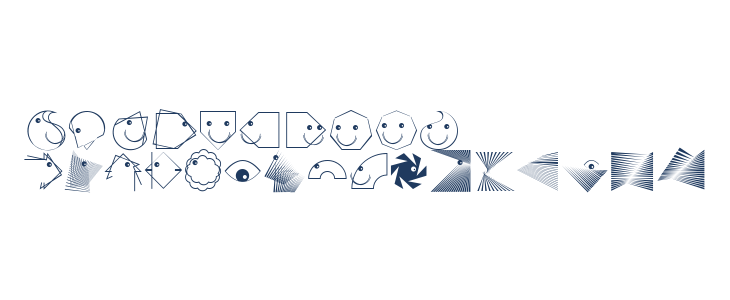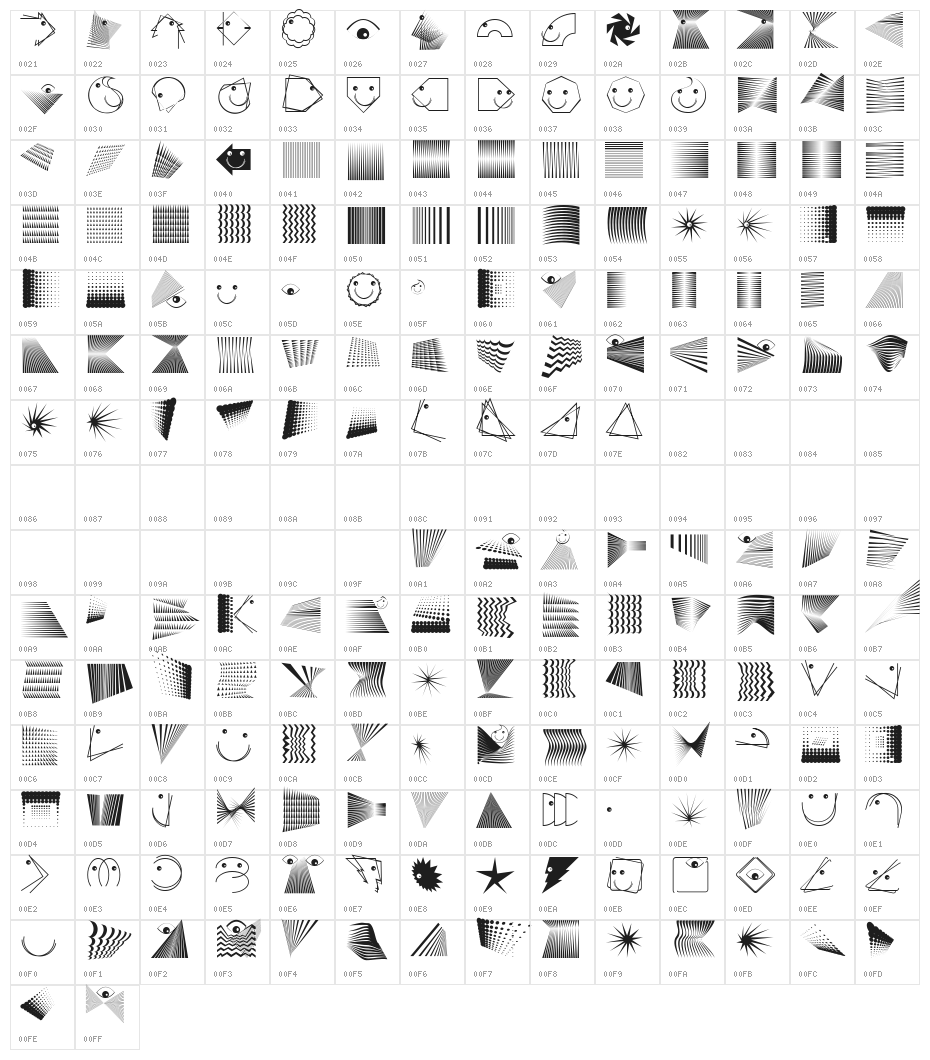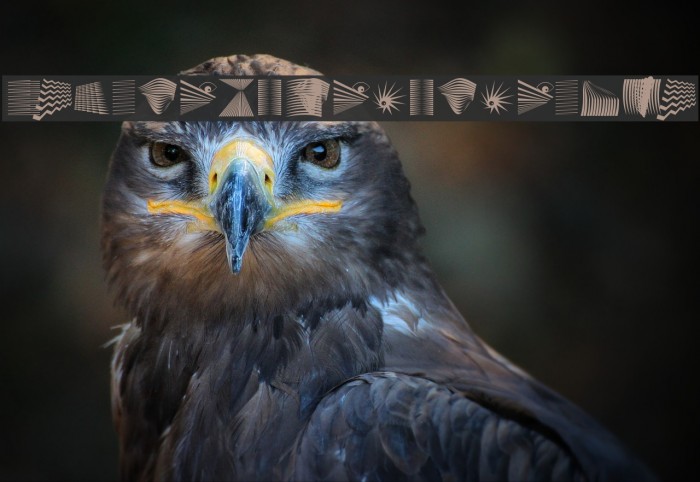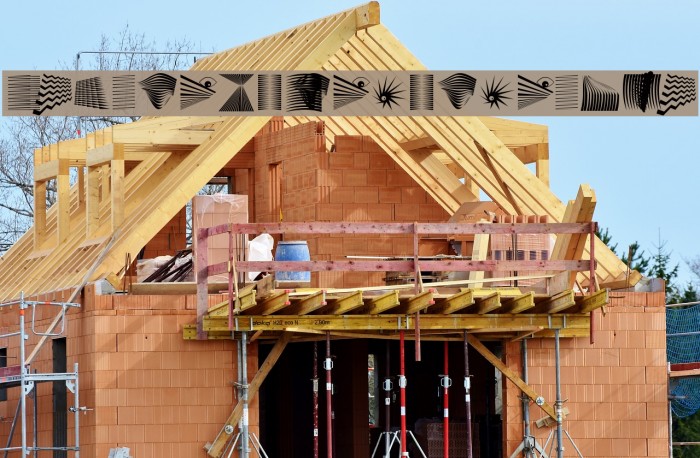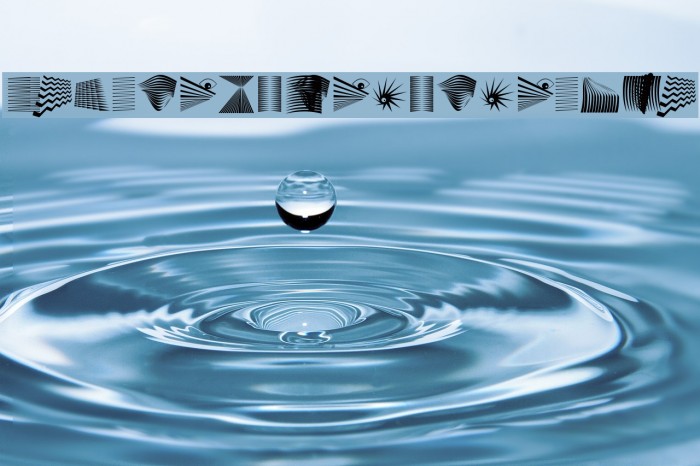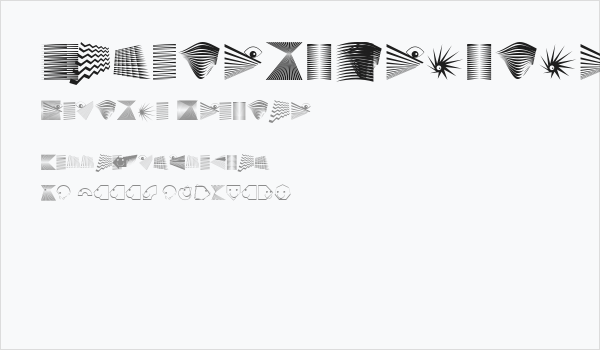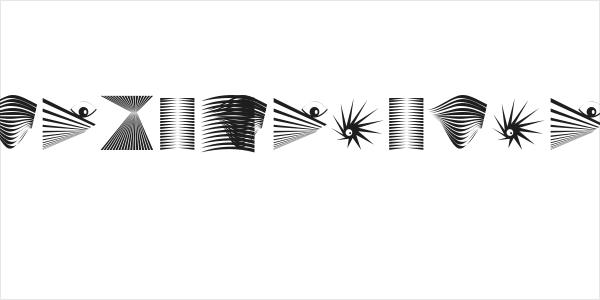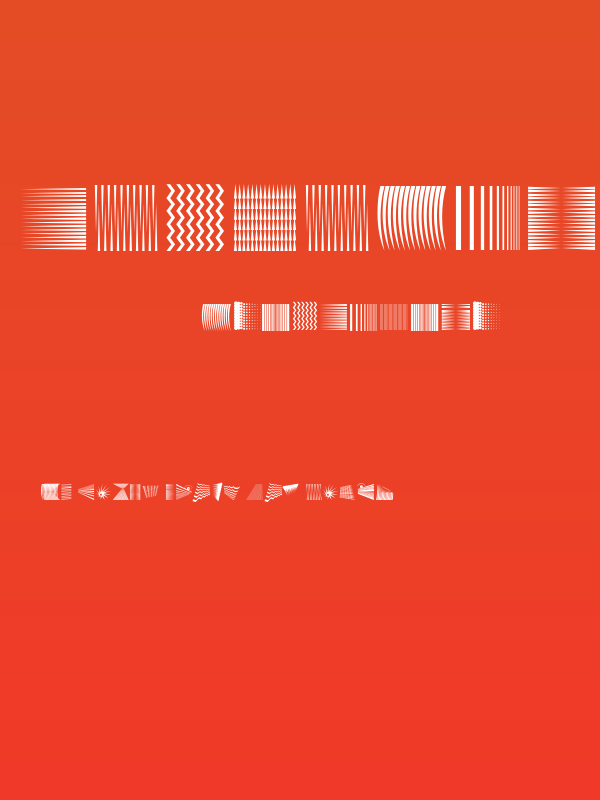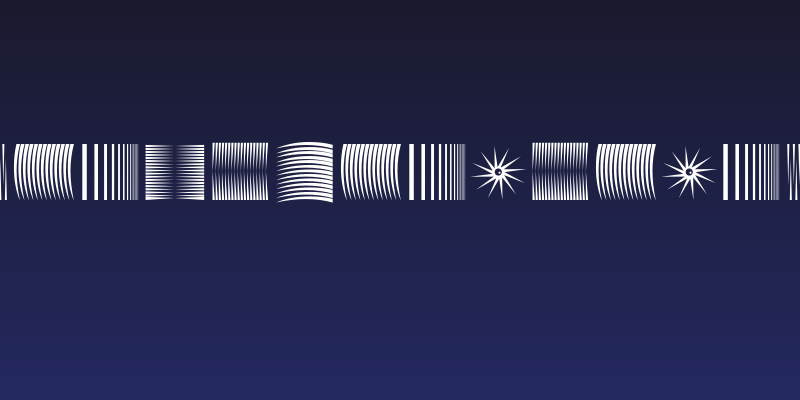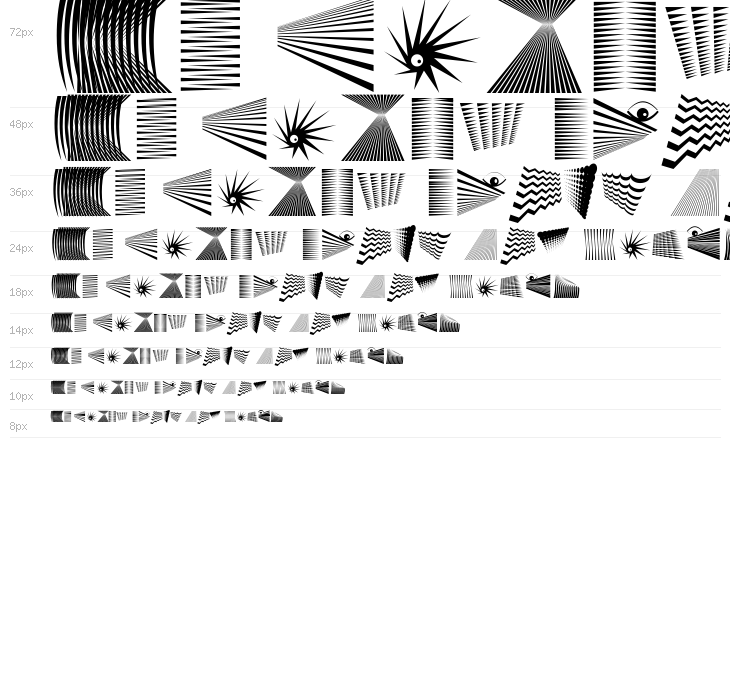
GeometricStructuresTwo Font
GeometricStructuresTwo Description
A highly decorative and abstract collection of geometric shapes and patterns, each character is represented by a unique visual motif such as lines, waves, dots, stars, and stylized faces. The glyphs are playful and experimental, with no traditional letterforms, focusing instead on visual impact and variety.
| Overall Style | Decorative, Abstract, Experimental |
| Use Case | Logos, Posters, Art installations, Visual identities |
| Proposed Projects | Posters, album covers, branding for creative industries, experimental art projects, visual puzzles, and decorative initials. |